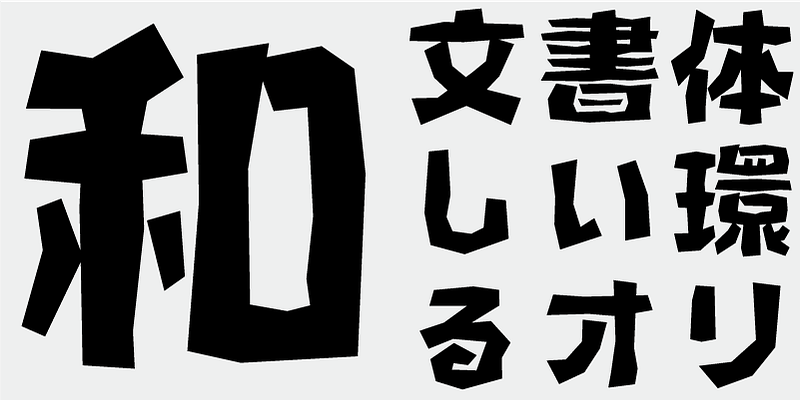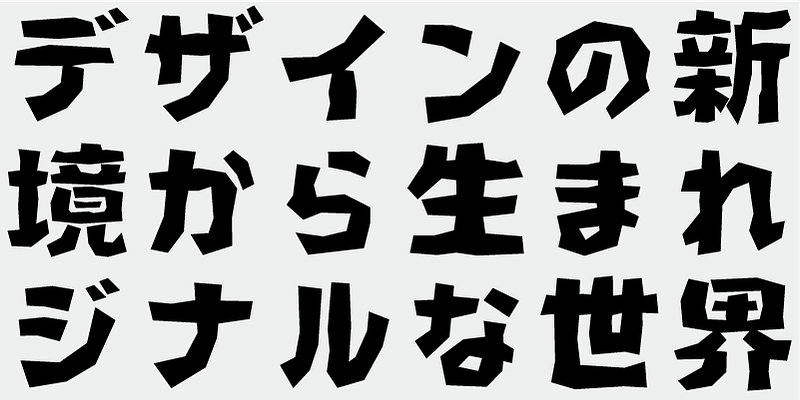
A paper-cut style typeface with a Japanese aesthetic. Inspired by handwritten signs on mountain trails and information boards in traditional rural villages. Ideal for handmade event titles and similar applications.
This font includes the top 1,000 kanji characters selected from usage frequency lists compiled by newspaper companies, publishers, and the National Institute for Japanese Language and Linguistics, plus 206 additional characters such as kana, alphanumerics, and carefully selected symbols and punctuation marks.